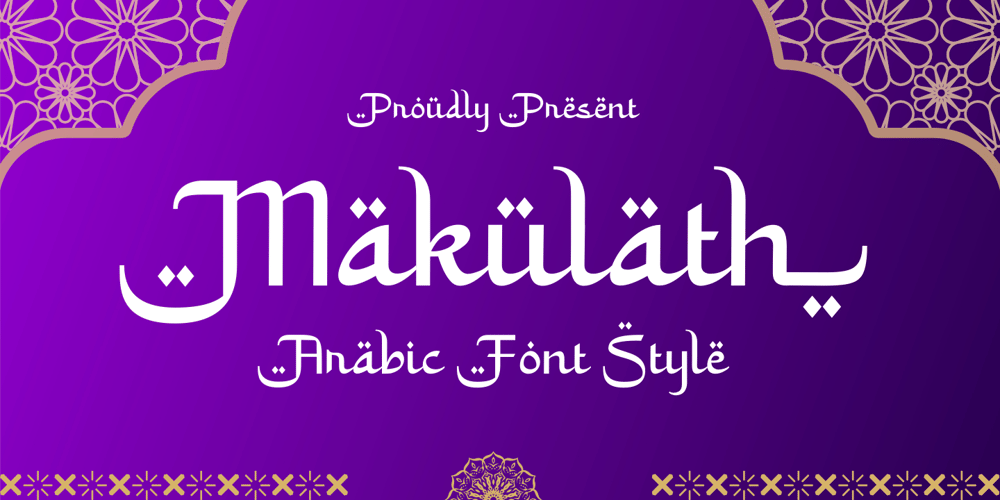
Makulath Font Family was designed by Muhamad Yusron Billah and published by Sronstudio. Makulath contains 1 styles and family package options. Introducing “Makulath,” an elegant Arabic script font that exudes the beauty and grace of the Arabic language. With its intricate strokes and flowing lines, this font captures the essence of Arabic calligraphy. Perfect for projects that celebrate the richness of Arabic culture, such as invitations, posters, or branding materials, “Makulath” adds a touch of sophistication and authenticity to your designs, enhancing them with the timeless allure of Arabic script.Features:- Alternates- PDF Guide- Numeral & Punctuation- PUA Encoded- Multilingual support- Simple Installation- Work both on Mac and WindowsThank you very much 🙂